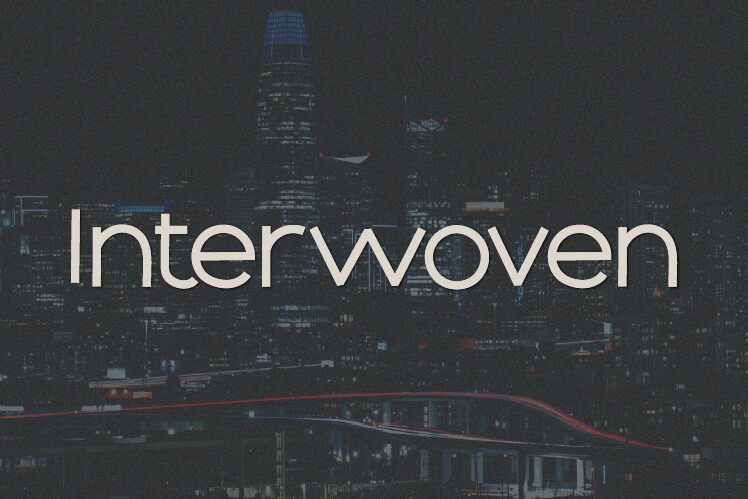
Interwoven
Interwoven font delivers sequences of interweaving lines that create modern geometric letters. Featured upper case characters are minimalist, clean, and condensed in style for a sleek design that works perfectly in contemporary projects. Designed by Hanna Bie, this free display font consists primarily of thin strokes seen in the letter skeletons as well as the multi-line elements.
Use Hanna’s Interwoven font for the design and development of posters, flyers, banners, product packaging or labels among others. Additionally, use it on any standard project where headings and titles are relevant usages.